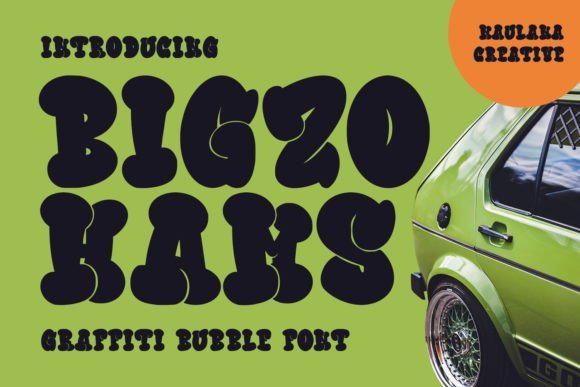
Get Ready to Make a Splash with Bigzo Hams Font
Have you ever found yourself staring at a blank page, trying to come up with the perfect font to match your creative vision? That’s exactly where I was when I discovered Bigzo Hams Font – a game-changing, wavy, and whimsical display font that brings a touch of youth and joy to any design.
Bigzo Hams Font is the perfect addition to any project that needs a trendy and stylish boost. Whether you’re designing a party invitation, a swimming gathering, or just want to add some personality to your social media posts, this unique font is sure to elevate your creations. As a designer, you’ll appreciate the versatility and playfulness of Bigzo Hams Font, making it a valuable addition to your toolkit.
Bigzo Hams Font Key Features
- Unique Characteristics: Bigzo Hams Font features a unique blend of handwritten and typographic elements, creating a distinctive and eye-catching visual style.
Bigzo Hams Font Review
Overall, I’m a bit torn with Bigzo Hams Font. While it has its unique charm, I’m not entirely convinced it’s the right fit for most projects.
- ✨ Unconventional design: Bigzo Hams Font has a distinct, hand-drawn feel that can add a touch of personality to your designs.
- ✨ Versatile: Despite its quirky design, it can work well in a variety of contexts, from headings to body text.
- ✨ Playful feel: The font’s irregularities can create a sense of whimsy and fun, making it perfect for projects that require a lighthearted tone.
- ⚠️ Readability: In some cases, the font’s irregularities can make it difficult to read, especially at smaller sizes.
- ⚠️ Limited legibility: Some characters, like ‘i’ and ‘l’, can be hard to distinguish from one another.
- ⚠️ Not ideal for long blocks of text: Bigzo Hams Font’s unique design can make it challenging to read large amounts of text.
In conclusion, Bigzo Hams Font is an interesting addition to any font collection, but it’s not a go-to choice for most projects. It’s perfect for adding a touch of personality to specific elements or for projects that require a playful, whimsical feel.
Getting the Most Out of Bigzo Hams Font
For best results, use Bigzo Hams Font in bold or italic styles to add emphasis to your text.
Pair Bigzo Hams Font with other fonts to create a unique and eye-catching design.
Bigzo Hams Font is ideal for:
1. Headlines and titles.
2. Branding and logos.
3. Social media graphics.
4. Print materials, such as brochures and business cards.
Alternatives to Bigzo Hams Font
Great Vibes is a beautiful, elegant script font that works well for titles, headings, and other decorative text. It’s perfect for creating a sense of luxury and sophistication.
Compared to Bigzo Hams Font, Great Vibes has a more refined and polished look, making it suitable for high-end branding and advertising.
Alex Brush is a modern script font that’s ideal for creating a sense of warmth and approachability. It’s perfect for use in logos, headings, and body text.
Compared to Bigzo Hams Font, Alex Brush has a more organic and handwritten feel, making it suitable for creative and artistic projects.
Lobster is a bold and playful script font that’s perfect for use in titles, headings, and other decorative text. It’s great for creating a sense of fun and energy.
Compared to Bigzo Hams Font, Lobster has a more casual and relaxed look, making it suitable for social media, advertising, and other casual projects.